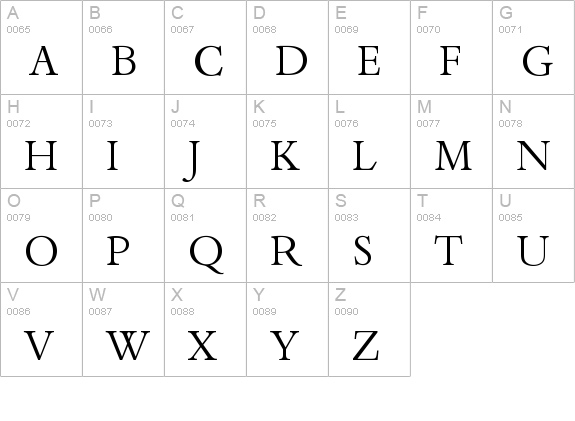
Bernstein-Light is a refined, elegant variant in the Bernstein typeface family \xE2\x80\x94 well suited to elegant body text, refined sub-headings, and luxury branding.
Bernstein-Light is a versatile and elegant font that exudes sophistication and modernity. With its clean lines and subtle curves, this font is perfect for a wide range of design projects, from branding to editorial layouts. The light weight of Bernstein-Light adds a touch of delicacy and refinement to any text, making it ideal for conveying a sense of elegance and style. The best part is that Bernstein-Light is available for free download at FontsMarket.com. This means you can easily access this beautiful font and use it in your projects without any cost. Don't miss out on the opportunity to enhance your designs with the timeless charm of Bernstein-Light – download it for free today!